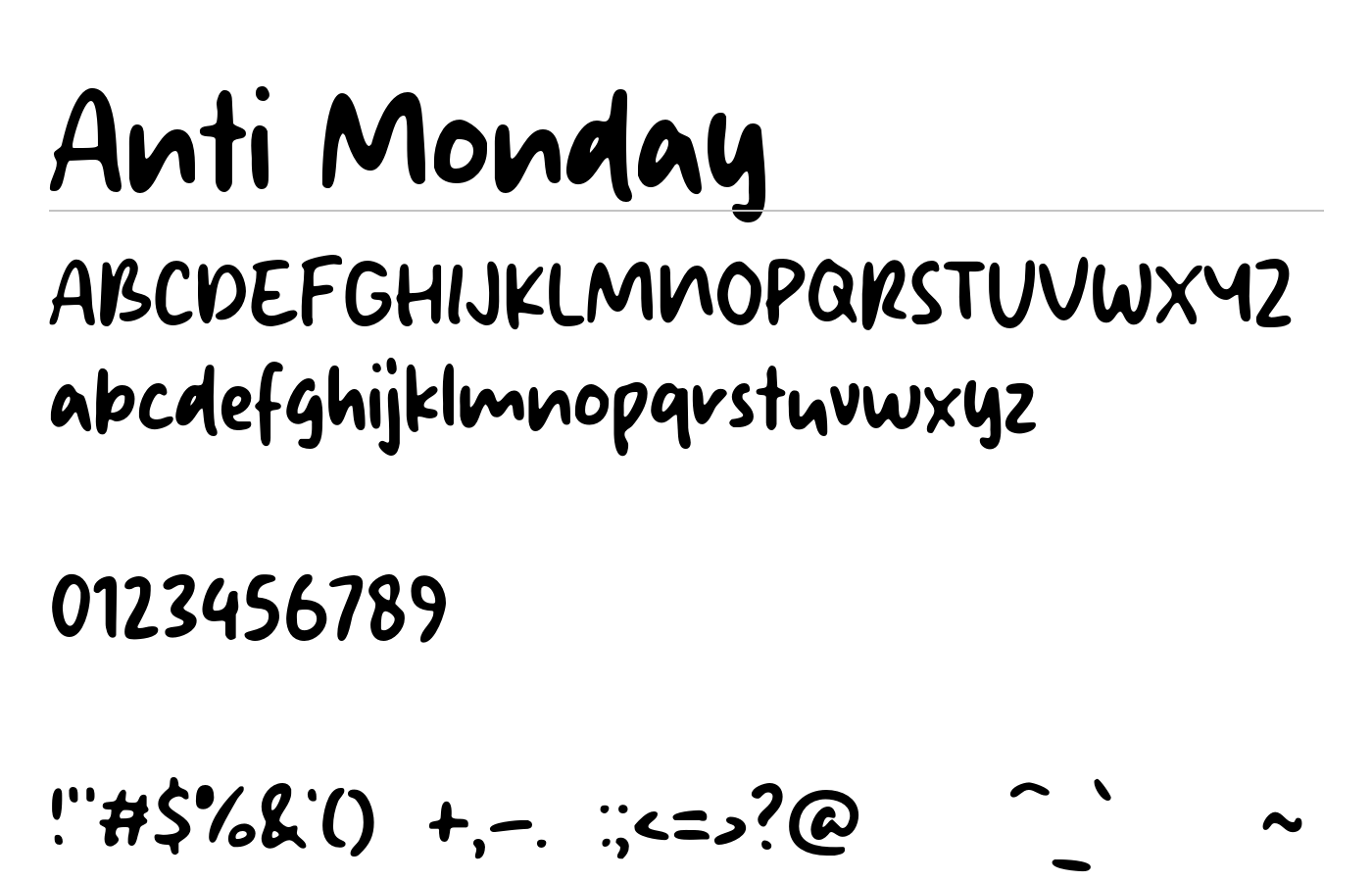
Anti Monday is a playful, casual handwritten font with a lively, informal feel. Its rounded strokes and slightly irregular shapes create a friendly and approachable vibe, making it perfect for fun, creative projects that want to convey personality and warmth. This font works well for informal branding, children's materials, social media graphics, and any design needing a personal, relaxed touch.
Anti Monday Font